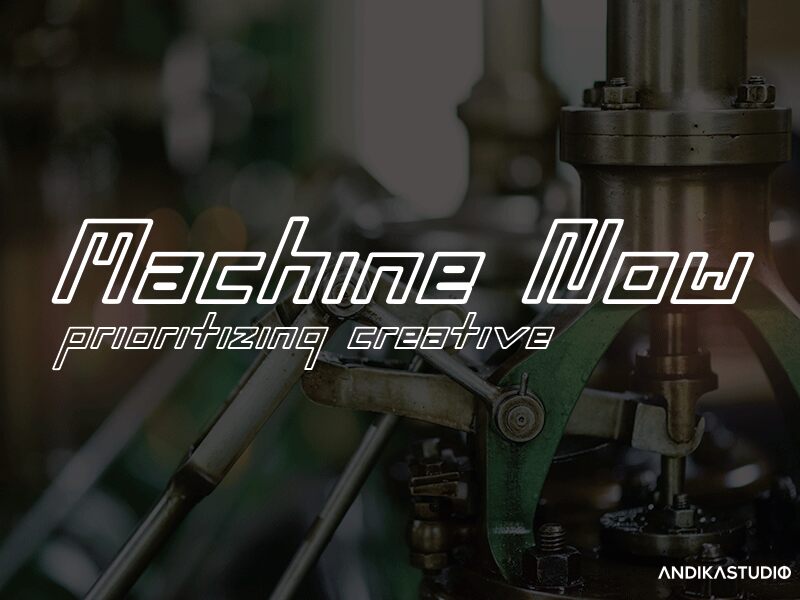
Machine Pro, crafted by the talented designer Lontong Lodeh, is a stunning display font that is perfect for a range of creative projects. Its semi-light weight and expanded width make it an ideal choice for bold headlines or eye-catching logos. The outlined techno style adds an edgy and futuristic vibe to any design, while its legibility ensures readability even at smaller sizes. Use Machine Pro to create attention-grabbing posters, striking digital ads or sleek product packaging. With its unique look and feel, this font is sure to make your designs stand out from the crowd!